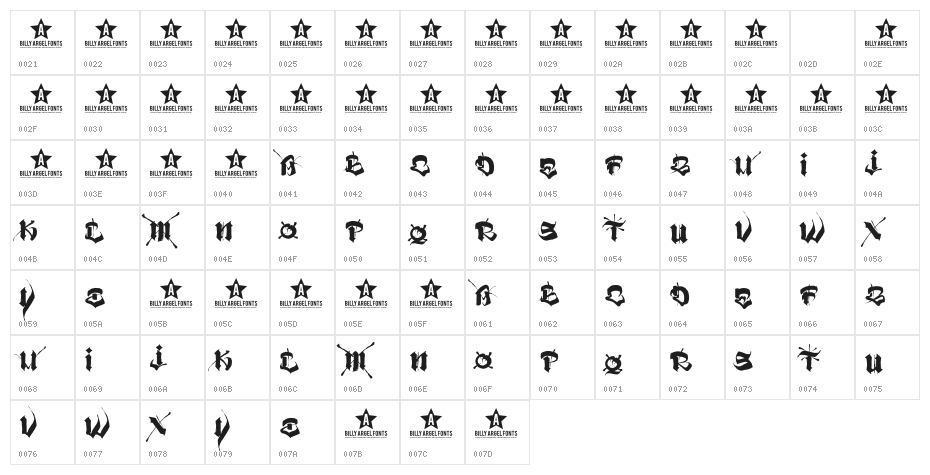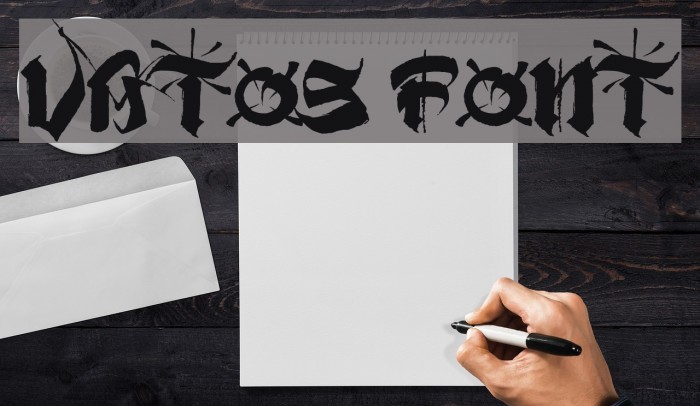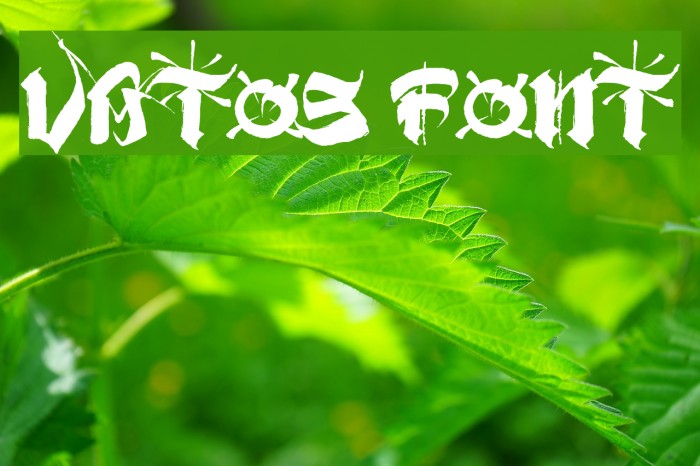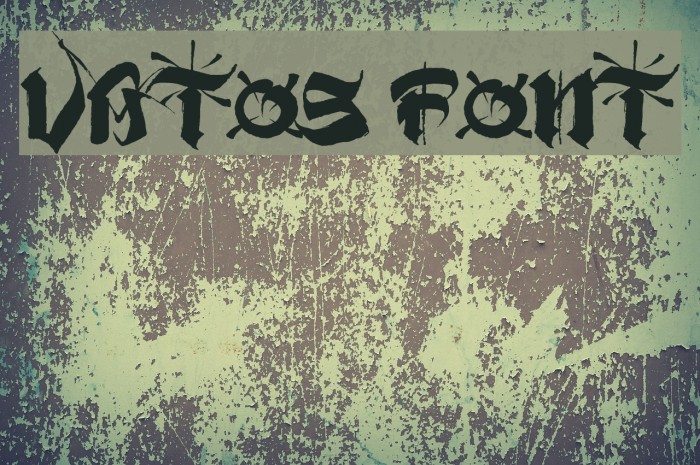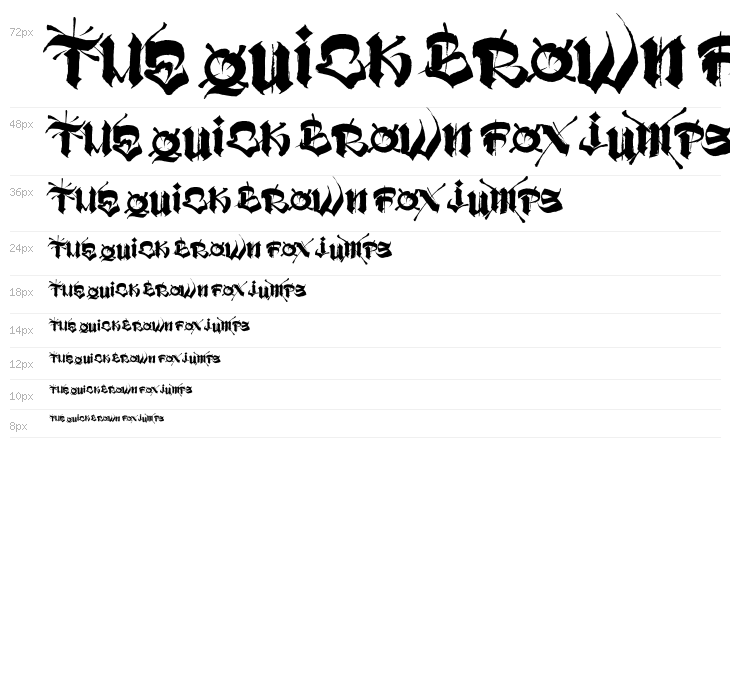
VATOS Font
VATOS Description
This font features a bold, dramatic style with sharp, angular lines and a gothic influence. The characters are heavily stylized, with exaggerated serifs and intricate detailing that give it a unique, edgy appearance. The uppercase letters are particularly striking, with a strong presence that commands attention. The lowercase letters maintain the same level of detail, ensuring consistency throughout the typeface. The numbers and special characters are equally ornate, making this font suitable for designs that require a bold statement. Its overall aesthetic is reminiscent of traditional blackletter fonts, yet it incorporates modern elements that make it versatile for contemporary use.
VATOS UPPERCASE
VATOS LOWERCASE
VATOS OTHER CHARS
| Proposed Projects | Ideal for tattoo designs, album covers, posters, and branding projects that require a bold, edgy look. |